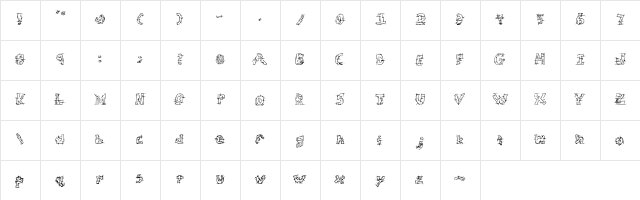
Chaotic Circuit Regular
Foundry: Bionic Type
Designer: Swat Kat
Chaotic Circuit Family
Design Context for Chaotic Circuit
Chaotic Circuit is a composed and adaptable typeface that performs quietly and consistently across a wide range of design contexts.